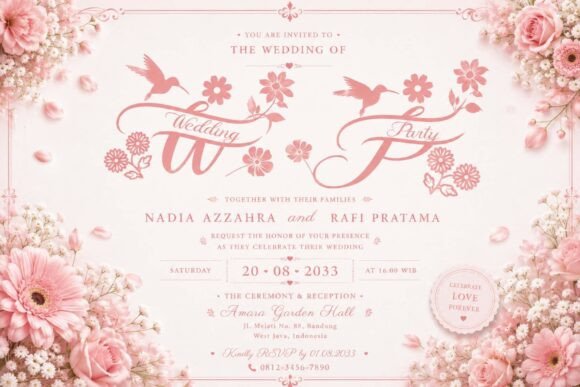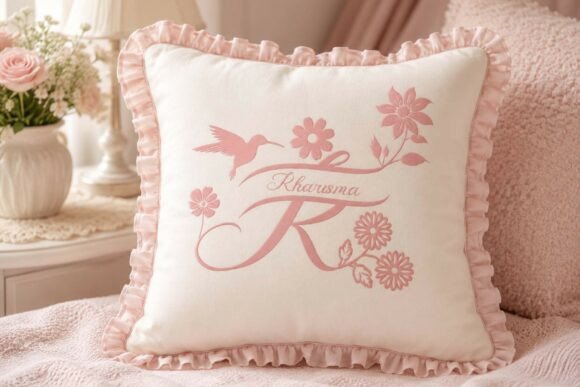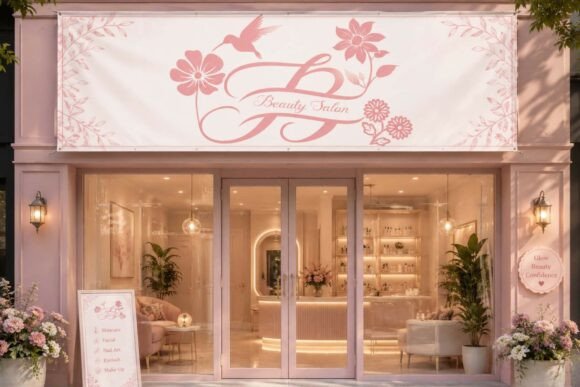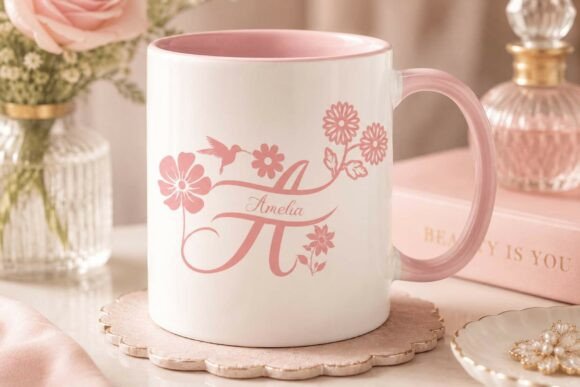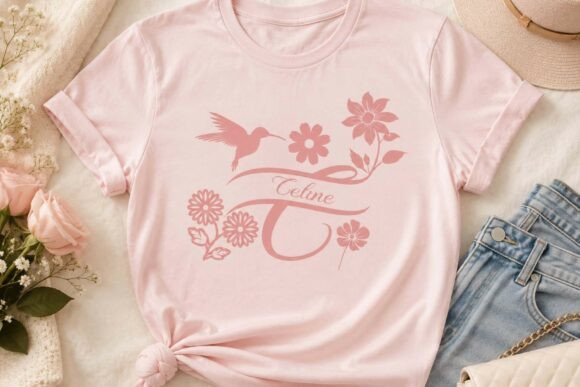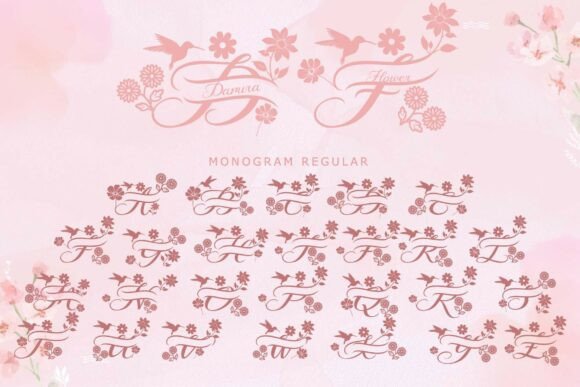
Introducing Damira Flower Monogram Font: The Perfect Addition to Your Design Arsenal
Are you a designer or crafter looking for a unique and beautiful font to add a touch of elegance to your projects? Look no further than the Damira Flower Monogram Font. This stunning monogram font is decorated with birds and beautiful blooming flowers, making it perfect for spring, summer, weddings, invitations, business branding, and more.
What Makes Damira Flower Monogram Font So Special?
The Damira Flower Monogram Font is a one-of-a-kind font that stands out from the rest. Its unique design features birds and flowers, which gives it a fresh and playful feel. The font comes in two styles: regular and italic, allowing you to add some variety to your designs. Whether you’re creating wedding invitations, stickers, t-shirts, or mugs, this font is sure to add a touch of sophistication and charm.
Perfect for Spring and Summer Designs
As the seasons change and spring and summer arrive, the Damira Flower Monogram Font is the perfect addition to your design arsenal. The font’s floral design and bright feel make it ideal for creating beautiful and eye-catching designs for seasonal projects. From wedding invitations to garden party flyers, this font is sure to bring a touch of elegance and whimsy to your designs.
Use Damira Flower Monogram Font for Wedding and Invitation Designs
Weddings and invitations are a perfect match for the Damira Flower Monogram Font. The font’s elegant and sophisticated design makes it ideal for creating beautiful and memorable wedding invitations, save-the-date cards, and other wedding-related materials. The font’s unique design will add a touch of personality and style to your wedding designs, making them truly unforgettable.
Damira Flower Monogram Font for Business Branding
But the Damira Flower Monogram Font isn’t just limited to personal projects. It’s also perfect for business branding. The font’s unique design and elegant feel make it ideal for creating a professional and sophisticated brand identity. Whether you’re a small business owner or a large corporation, this font is sure to help you stand out from the competition.
Crafting and DIY Projects
The Damira Flower Monogram Font is also perfect for crafters and DIY enthusiasts. The font can be used to create a wide range of crafts, from stickers and t-shirts to mugs and other home decor items. The font’s unique design and playful feel make it ideal for adding a personal touch to your crafts and DIY projects.
Key Features of Damira Flower Monogram Font
- Unique monogram font decorated with birds and beautiful blooming flowers
- Comes in two styles: regular and italic
- Perfect for spring, summer, weddings, invitations, business branding, and more
- Ideal for designers, crafters, and DIY enthusiasts
- Elegant and sophisticated design
- Playful and whimsical feel
The Damira Flower Monogram Font is a beautiful and unique font that is sure to add a touch of elegance and whimsy to your designs. Whether you’re a designer, crafter, or DIY enthusiast, this font is perfect for a wide range of projects. With its elegant design, playful feel, and versatility, the Damira Flower Monogram Font is a must-have addition to your design arsenal.